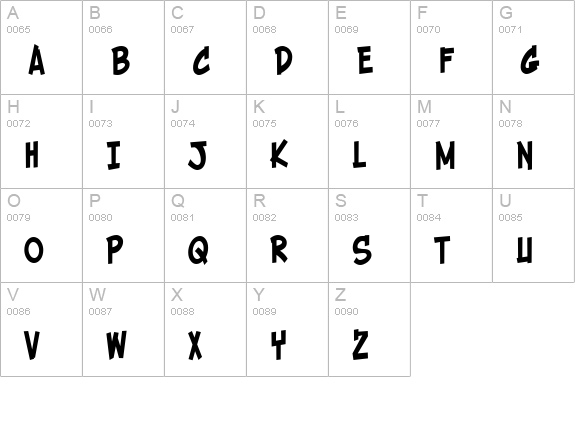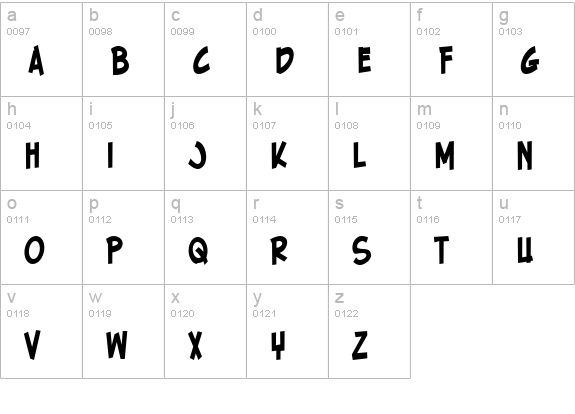
Holy Mackerel! Font Details
The Holy Mackerel! font is a whimsical and charming typeface that will add a touch of fun and playfulness to your designs. Its unique letterforms embody a sense of quirkiness and creativity, making it perfect for a variety of projects, from invitations to posters to branding. With its bold strokes and distinctive characters, Holy Mackerel! exudes a sense of personality and character that will make your text stand out. What's more, this delightful font is available for free download at FontsMarket.com, giving you easy access to this versatile typeface for all your creative endeavors. Whether you're a designer looking to add a touch of whimsy to your work or a hobbyist seeking a fun font for personal projects, Holy Mackerel! is sure to delight with its free availability and charming design. Download it today and let your creativity run wild with Holy Mackerel! font.